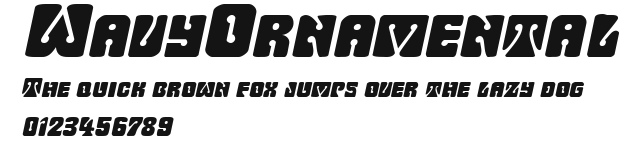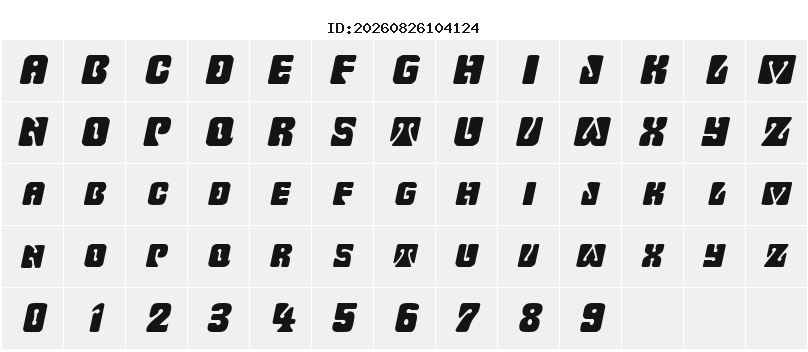
WavyOrnamental Preview
• Font Name: WavyOrnamental
• Font Style: Oblique
• Font ID: SWFTE:WavyOrnamental Oblique
• Full Font Name: WavyOrnamental Oblique
• Version: Rev. 003.000
• PostScript Name: WavyOrnamentalObliqueSWFTE
• Character Count: 81
About WavyOrnamental.ttf
WavyOrnamental.ttf is a modern, elegant sans-serif font designed for ultimate readability and visual harmony. Perfect for branding, headlines, web design, and print materials.